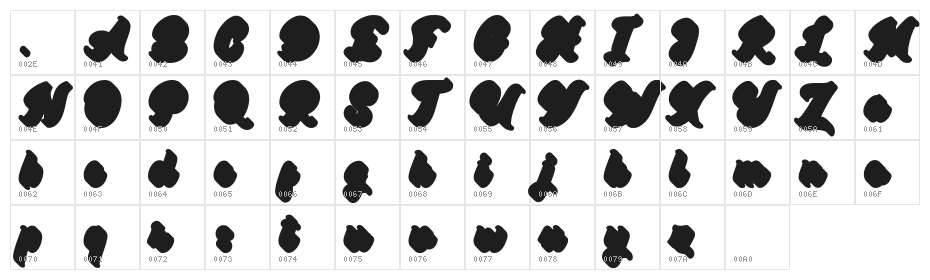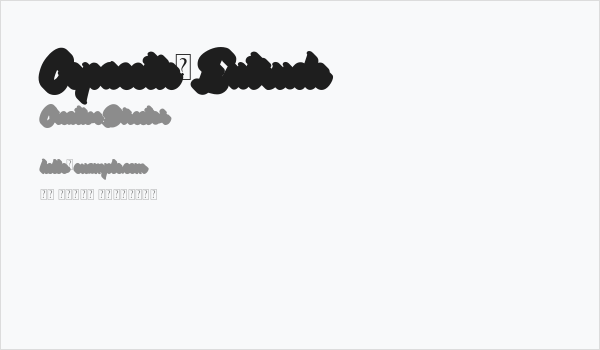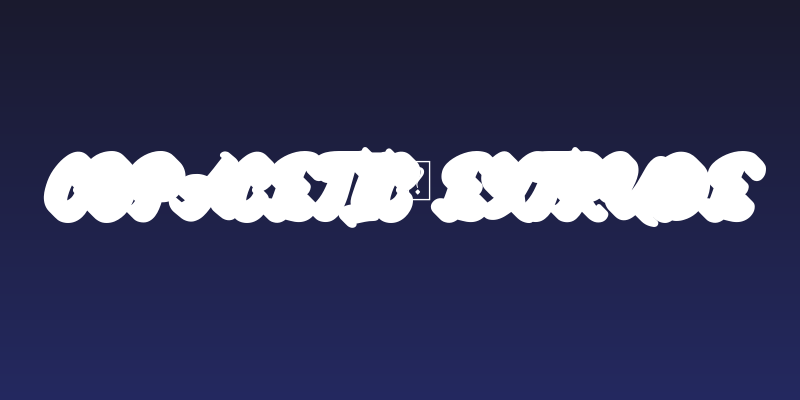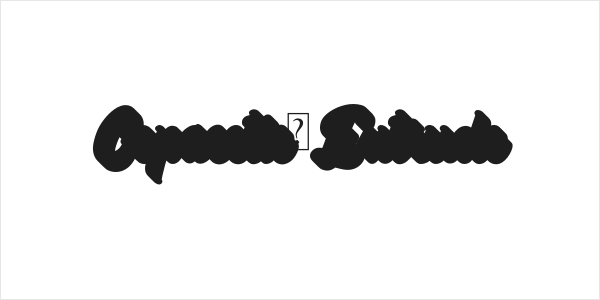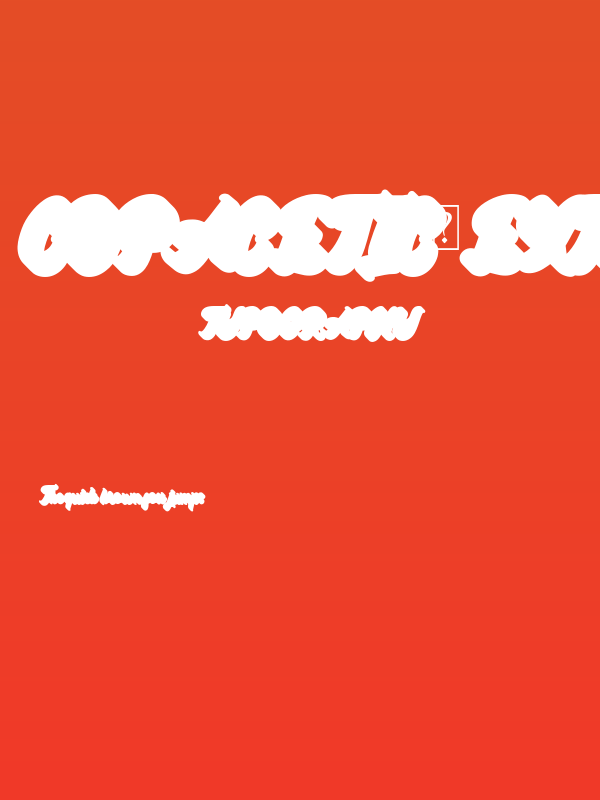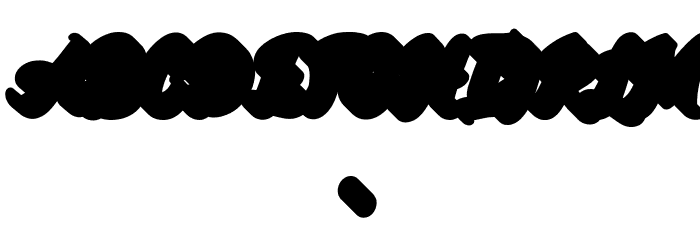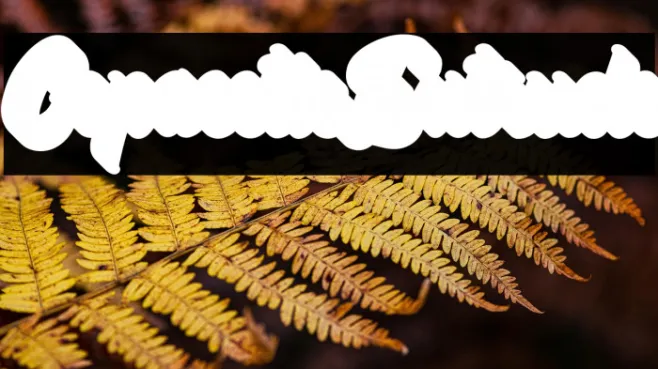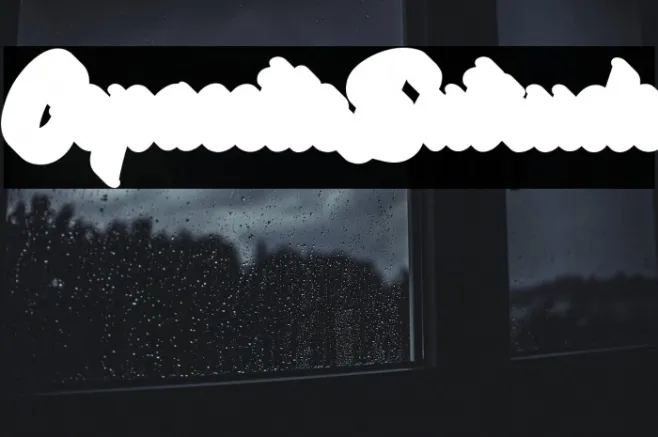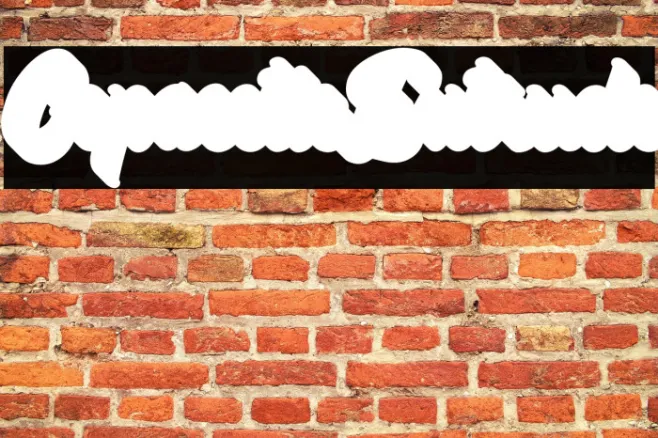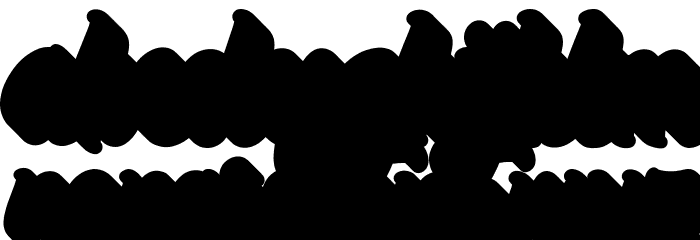
Copacetic-Extrude Font
Copacetic-Extrude Description
This font features a bold and playful design with an extruded, three-dimensional effect that gives it a unique and eye-catching appearance. The letters are rounded and have a bubbly, cartoonish style, making them stand out with a sense of fun and creativity. The thick strokes and exaggerated curves contribute to its distinctive look, making it ideal for projects that require a lively and engaging typeface. The font's boldness and depth create a strong visual impact, perfect for grabbing attention in various design contexts.
| Overall Style | Playful, Creative |
| Use Case | Logos, Posters, Headlines |
| Proposed Projects | Ideal for children's books, playful branding, event posters, and creative advertising. |